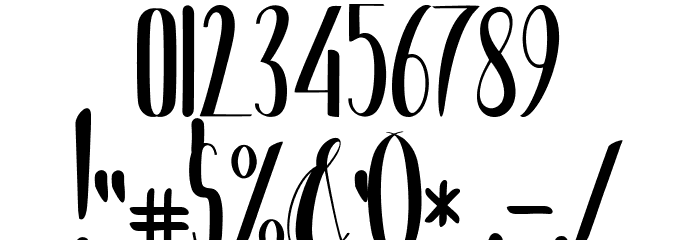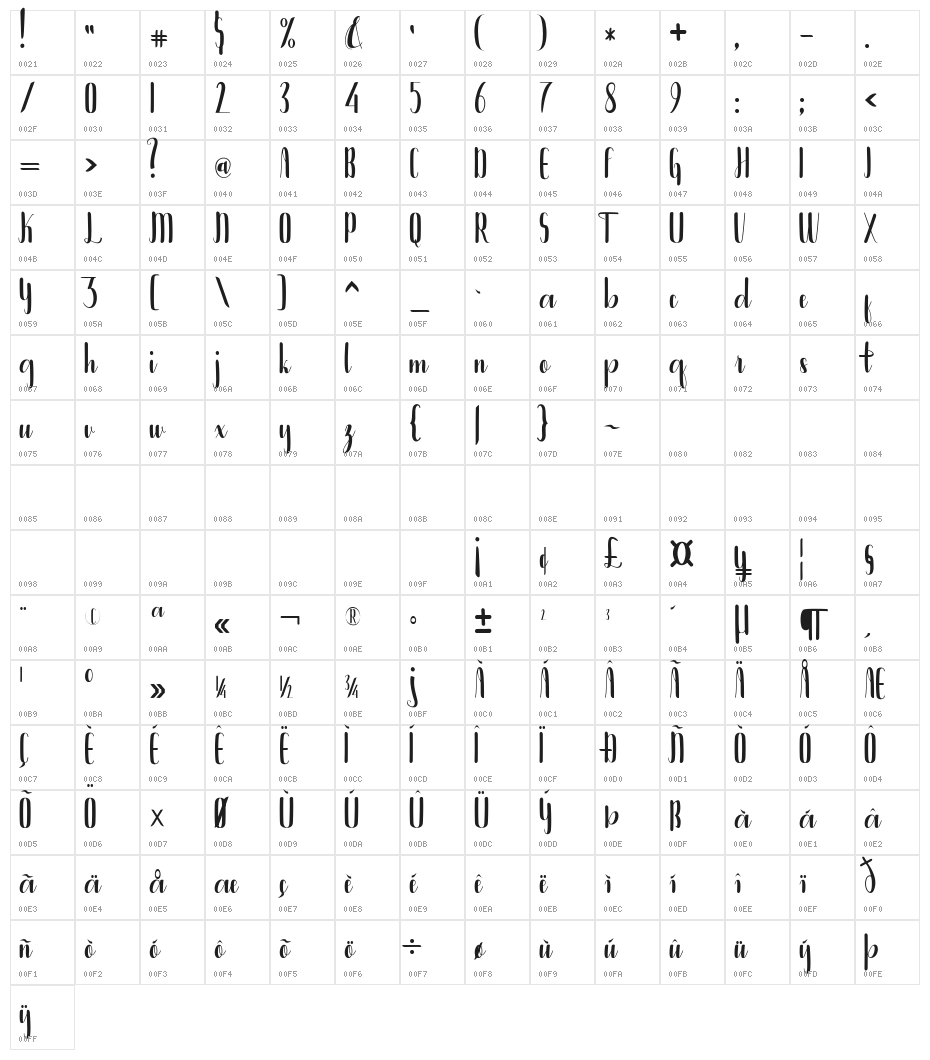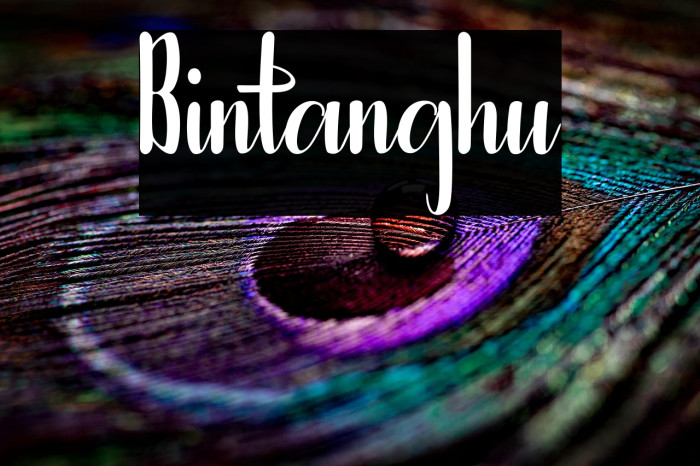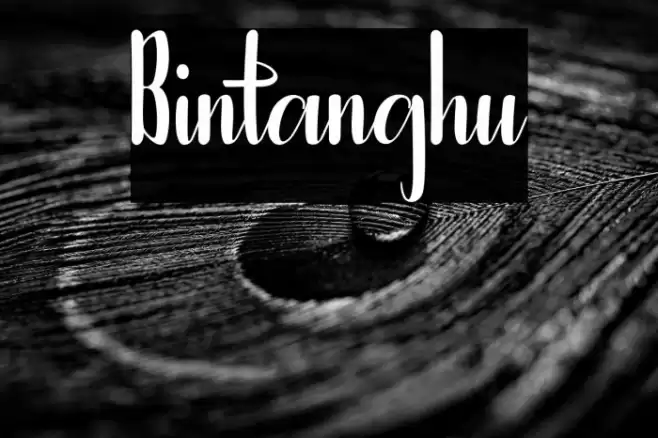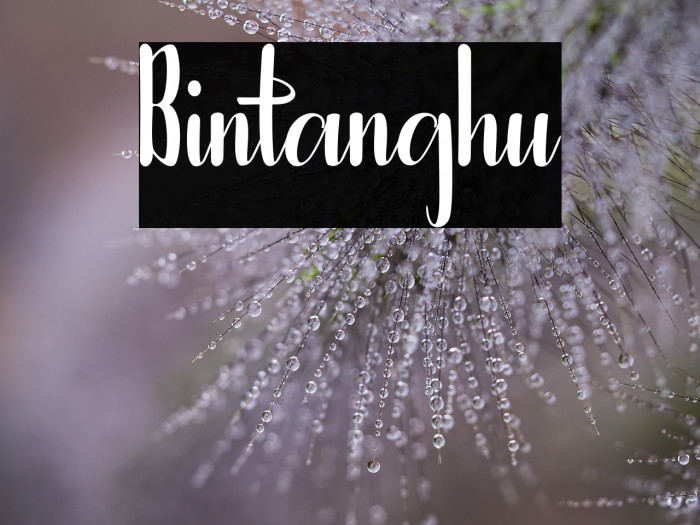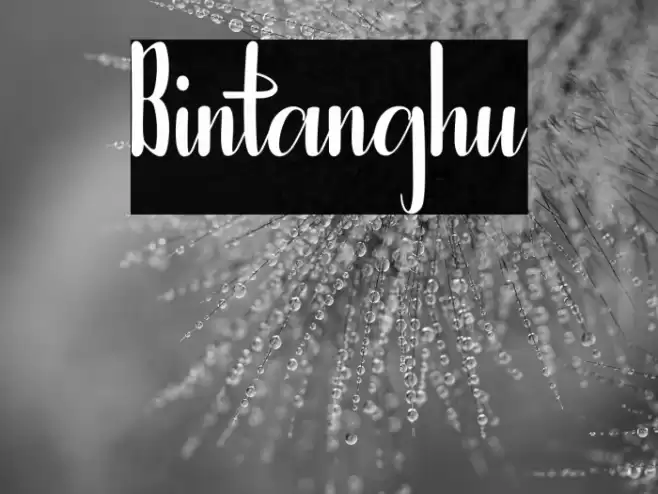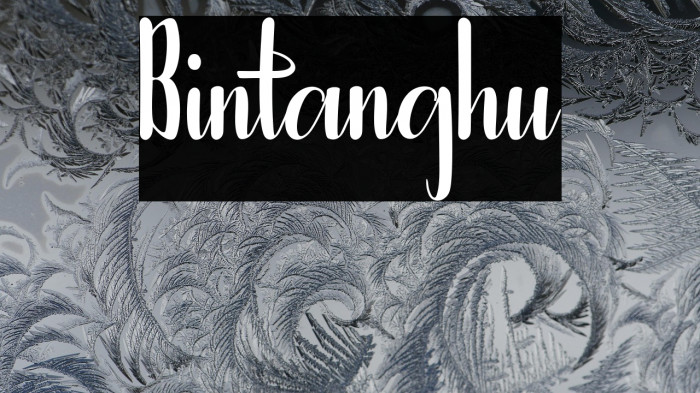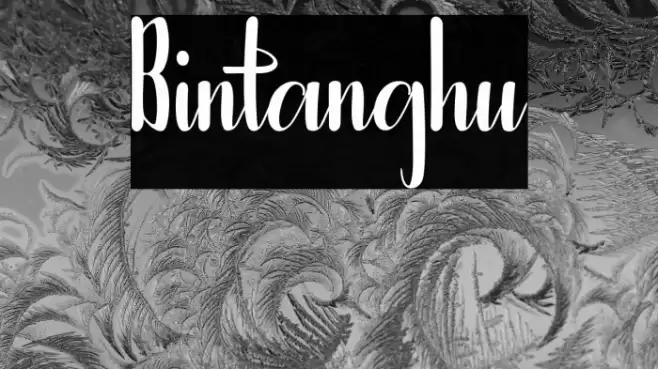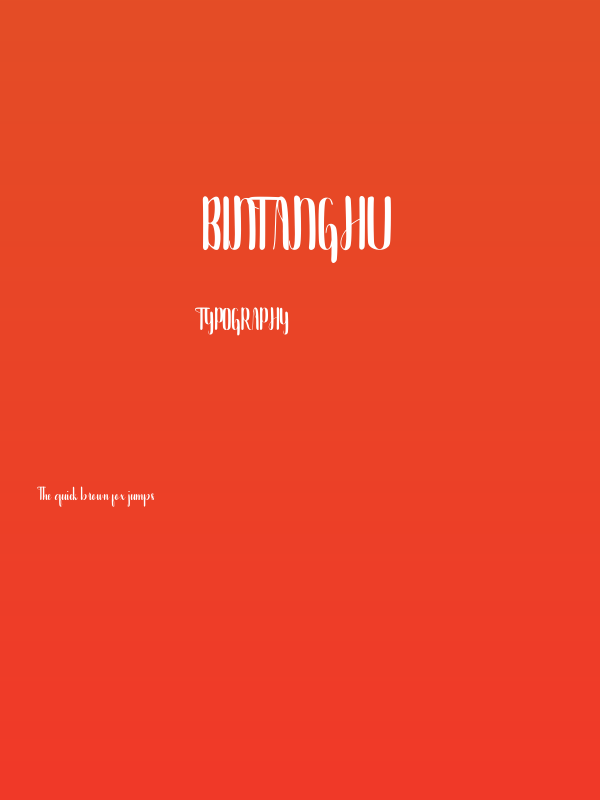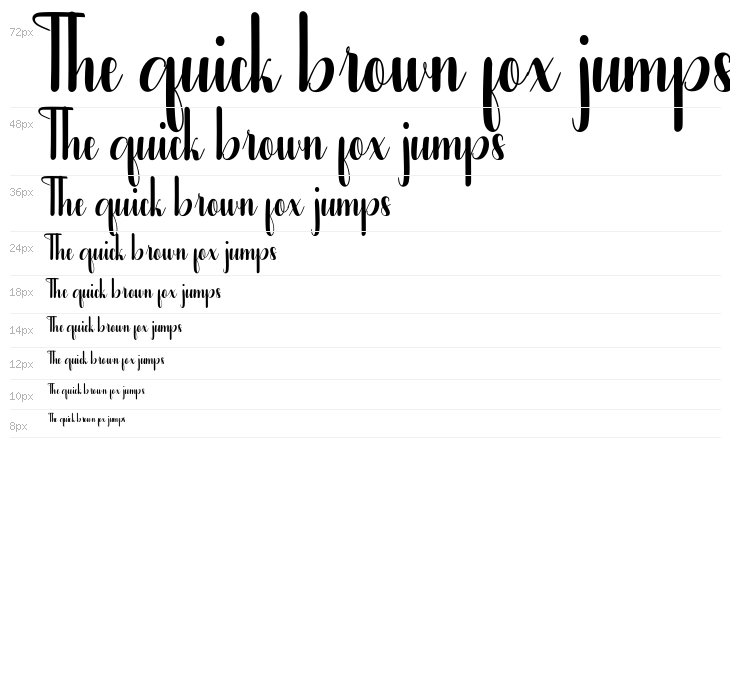
Bintanghu Font
Bintanghu Description
This font exhibits a unique blend of elegance and playfulness, characterized by its tall, narrow letterforms and flowing, script-like curves. The uppercase letters are particularly striking, with elongated vertical strokes and subtle flourishes that add a touch of sophistication. The lowercase letters maintain a consistent style, featuring smooth, rounded edges and a slight slant that enhances readability. Numbers and special characters are designed with the same attention to detail, ensuring a cohesive look across all elements. The overall appearance is both modern and artistic, making it suitable for a variety of creative applications.